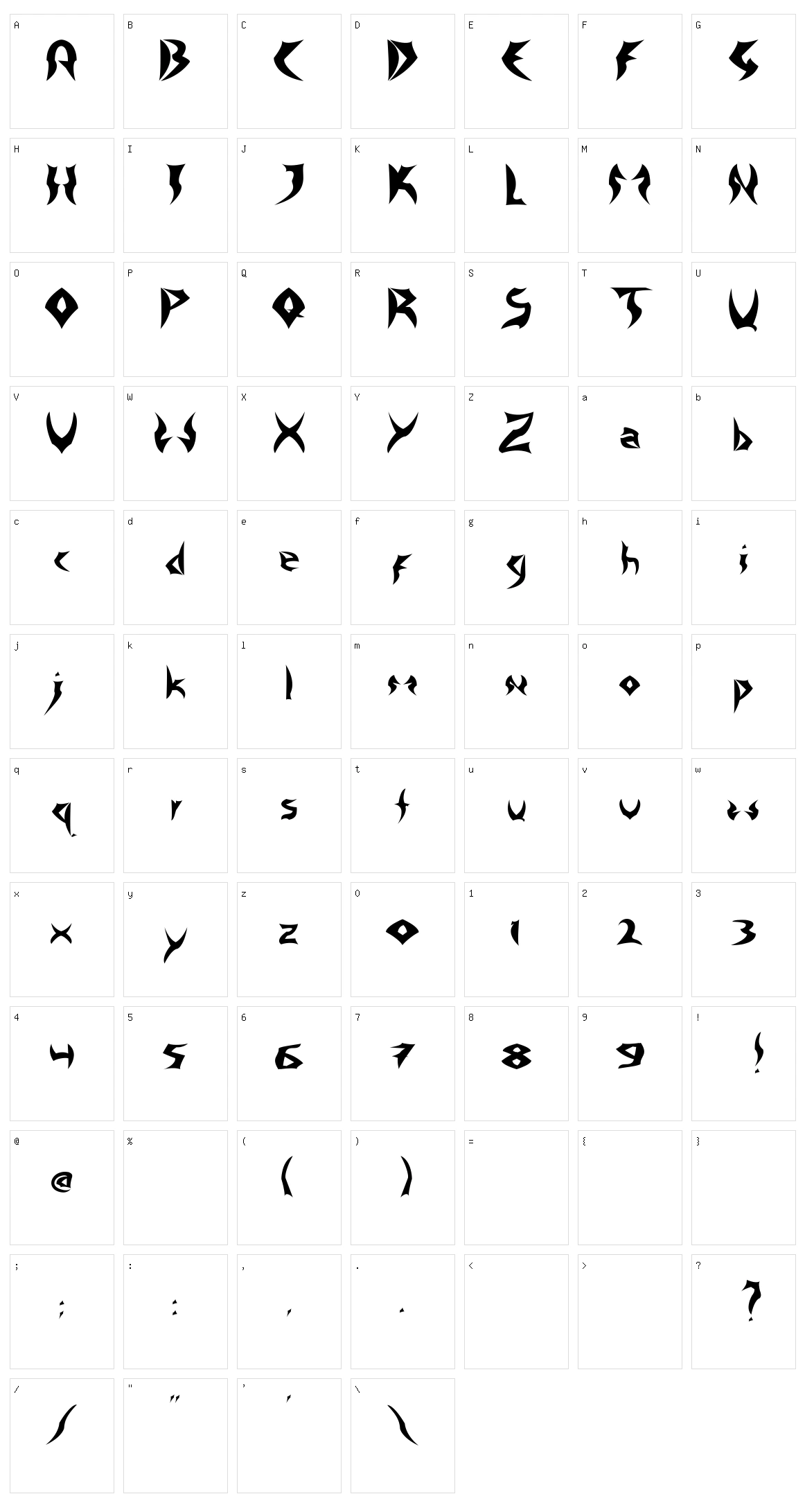
Tattoo Heavy
Designed by: Rob Verhelst
Description: The free font Tattoo Heavy is carefully designed by Rob Verhelst, showcasing a thoughtful balance of creativity and usability and belongs to the Gothic font family. When you download the ZIP file, it contains only 133.08 KB of font files, making it lightweight and quick to download. Please review the license details below to understand permitted usage and distribution rights. If license information is not available, we recommend using this font for personal projects only or contacting the author directly for commercial usage permissions.